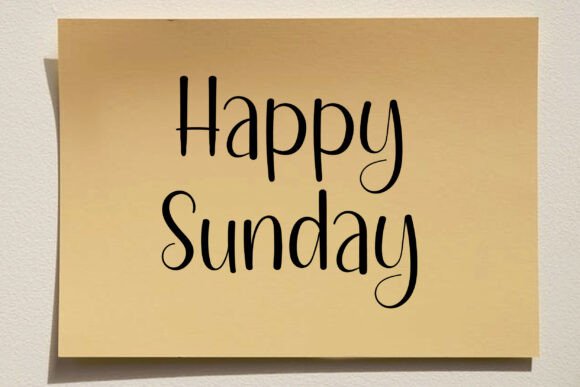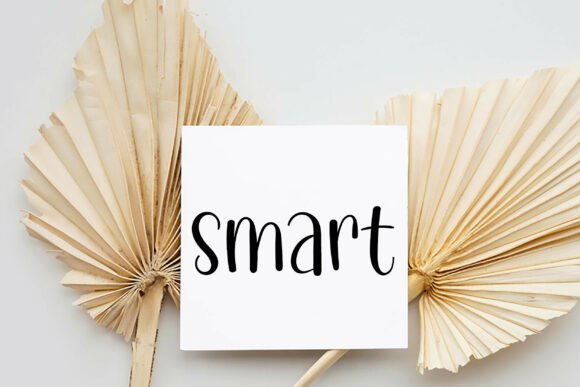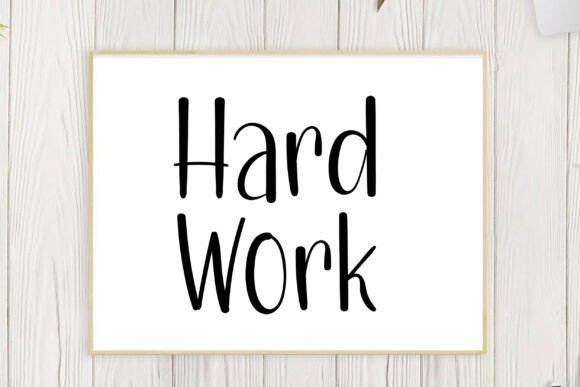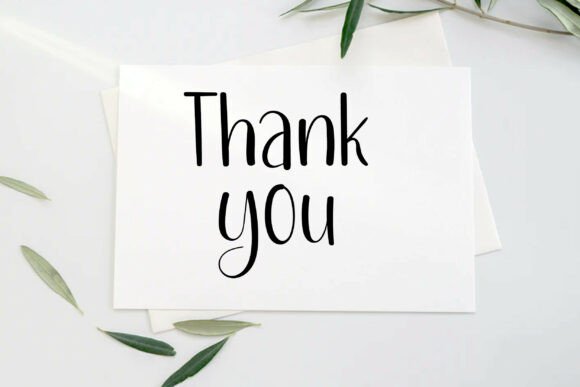
Introducing Amanda: The Ultimate Font for Creative Inspirations
In the world of design, a font can make all the difference. It can elevate your creative project from ordinary to extraordinary, and leave a lasting impression on your audience. If you’re a designer, crafter, or business owner looking for a font that embodies elegance, sophistication, and vibrancy, look no further than Amanda Font. In this article, we’ll introduce you to Amanda, a refreshingly vibrant and elegant font that’s perfect for a wide range of design applications.
The Perfect Blend of Chic and Sophistication
Amanda Font is designed to bring life to your creative inspirations. Its effortlessly chic appeal makes it the perfect choice for various design projects, including YouTube banners, logo cover mockups, wedding invitations, ID cards, flyers, or craft projects. With Amanda, you can add a touch of sophistication to your designs, setting them apart from the rest. Whether you’re a seasoned designer or a DIY crafter, Amanda Font is the perfect tool to enhance your design aesthetics and take your creations to the next level.
One of the standout features of Amanda Font is its versatility. Its clean and elegant design makes it suitable for a wide range of applications, from digital designs to print materials. Here are some design ideas to get you started:
• YouTube Banners: Create eye-catching YouTube banners that reflect your brand’s personality and style.
• Logo Cover Mockups: Design stunning logo cover mockups that showcase your brand’s logo in a beautiful and elegant way.
• Wedding Invitations: Create romantic and sophisticated wedding invitations that set the tone for the big day.
• ID Cards: Design professional and stylish ID cards that make a great first impression.
• Flyers: Create attention-grabbing flyers that promote your business, event, or product.
• Craft Projects: Add a touch of elegance to your craft projects, such as handmade cards, scrapbooking, or DIY gifts.
What Sets Amanda Font Apart
Amanda Font stands out from other fonts in several ways:
• Simplicity: Amanda Font boasts a simple yet elegant design that’s easy to read and understand.
• Uniqueness: Its unique style ensures that your designs have an unmatched visual appeal that sets them apart from others.
• Impressive Functionality: Amanda Font is designed to work seamlessly across various design applications and platforms.
Bolster Your Business Growth with Amanda Font
As a business owner, you understand the importance of creating a strong brand identity. Amanda Font can help you achieve this goal. By incorporating Amanda Font into your design materials, you can:
• Elevate Your Brand: Add a touch of sophistication and elegance to your brand, setting you apart from competitors.
• Enhance Your Visual Identity: Create a consistent visual identity across all your design materials, from business cards to website headers.
• Increase Engagement: Use Amanda Font to create eye-catching designs that grab attention and encourage engagement.
Get Ready to Bring Your Designs to Life